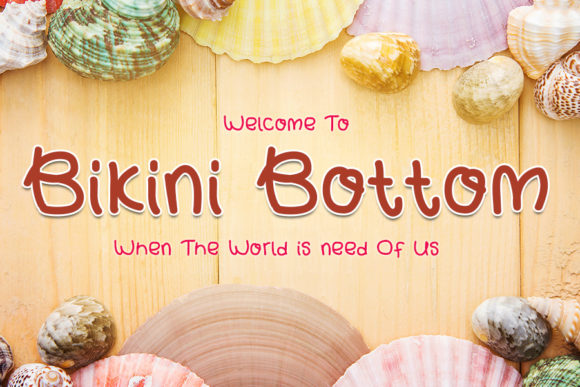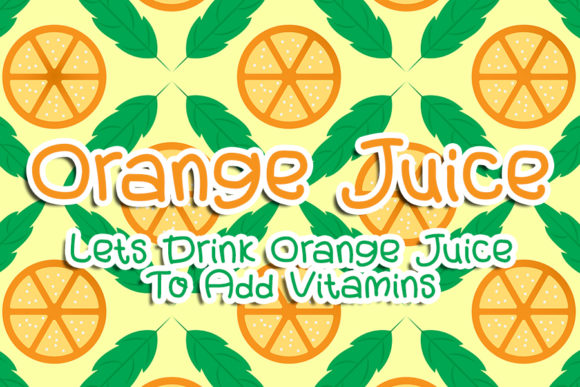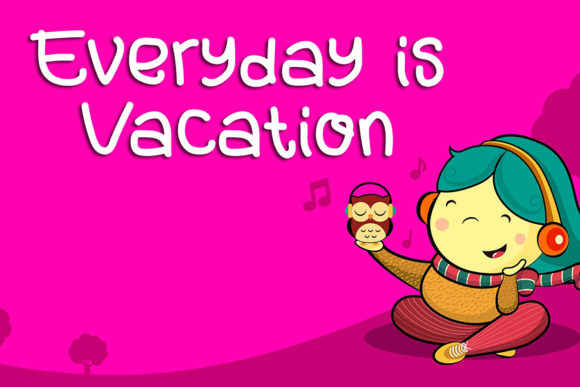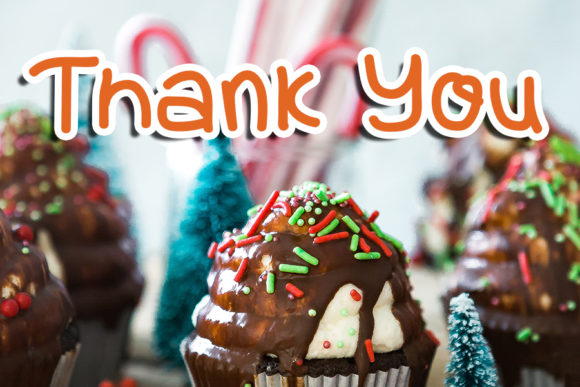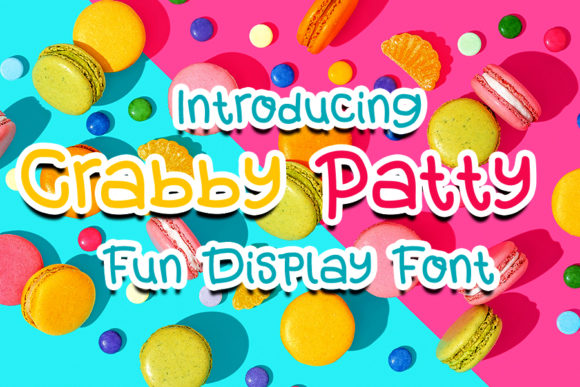
Crabby Patty Font: The Secret to Making Your Designs Stand Out
Are you tired of using the same old fonts in your designs? Do you want to add a touch of fun and quirkiness to your creative projects? Look no further than the Crabby Patty font! This dazzling display font is sure to turn any idea into a standout, and we’re excited to share its features and benefits with you.
What is Crabby Patty Font?
Crabby Patty is a fun and quirky display font that is perfect for designers and crafters looking to add some personality to their work. With its unique and playful design, this font is sure to grab attention and make your projects stand out from the crowd.
Whether you’re working on a logo, a poster, a t-shirt, or any other creative project, Crabby Patty is the perfect choice. Its bold and eye-catching design makes it ideal for headlines, titles, and short phrases, and its versatility ensures that it will work well in a variety of contexts.
Features of Crabby Patty Font
So what makes Crabby Patty font so special? Here are just a few of its key features:
- Unique and playful design: Crabby Patty has a one-of-a-kind design that is sure to turn heads. Its fun and quirky style makes it perfect for projects that require a bit of personality.
- Bold and eye-catching: This font is designed to grab attention, making it perfect for headlines, titles, and short phrases.
- Versatile: Crabby Patty can be used in a variety of contexts, from logos and posters to t-shirts and more.
- Easy to read: Despite its bold and playful design, Crabby Patty is still easy to read, making it perfect for use in a variety of projects.
Benefits of Using Crabby Patty Font
So why should you choose Crabby Patty font for your next project? Here are just a few benefits of using this amazing font:
- Adds personality to your designs: Crabby Patty is the perfect way to add a bit of fun and quirkiness to your designs.
- Grabs attention: This font is designed to grab attention, making it perfect for headlines, titles, and short phrases.
- Versatile: Crabby Patty can be used in a variety of contexts, making it a great addition to any designer’s toolkit.
How to Use Crabby Patty Font
Using Crabby Patty font is easy! Here are a few tips to get you started:
- Pair it with other fonts: Crabby Patty looks great when paired with other fonts, such as sans-serif fonts like Arial or Helvetica.
- Use it for headlines and titles: This font is perfect for headlines and titles, where its bold and eye-catching design can really shine.
- Experiment with different colors: Crabby Patty looks great in a variety of colors, so don’t be afraid to experiment and find the perfect hue for your project.